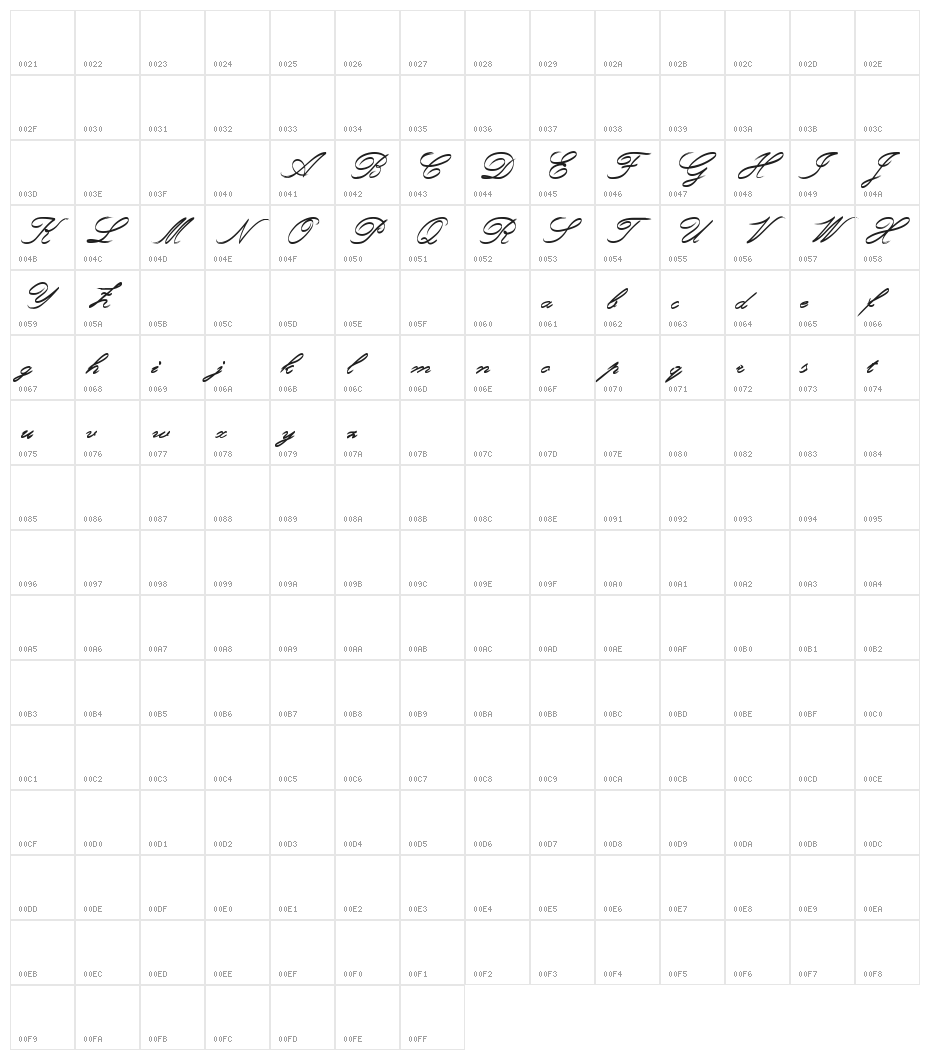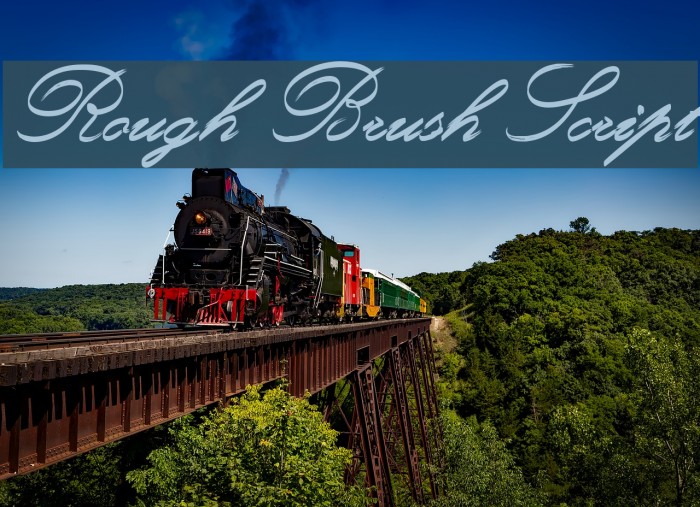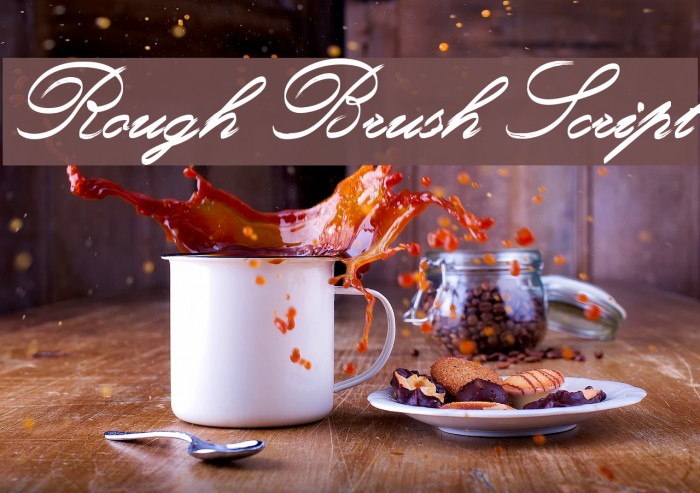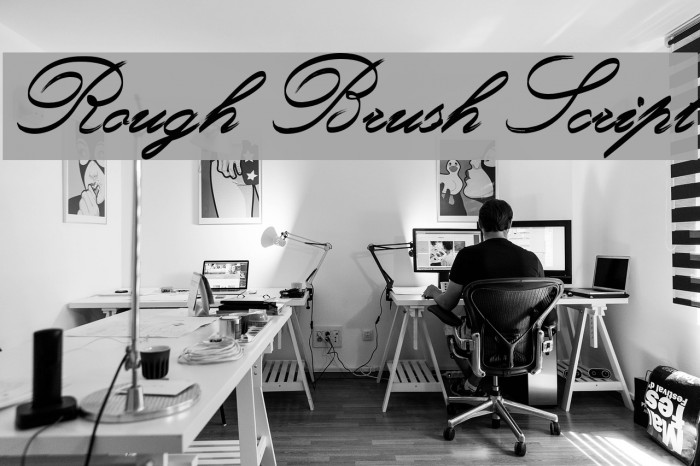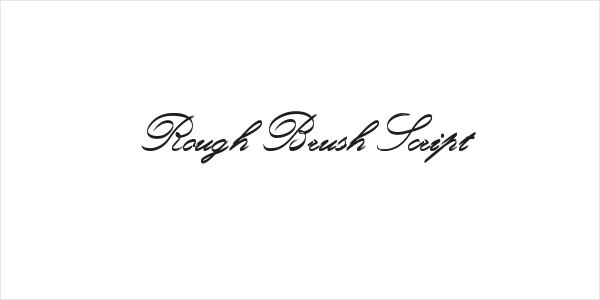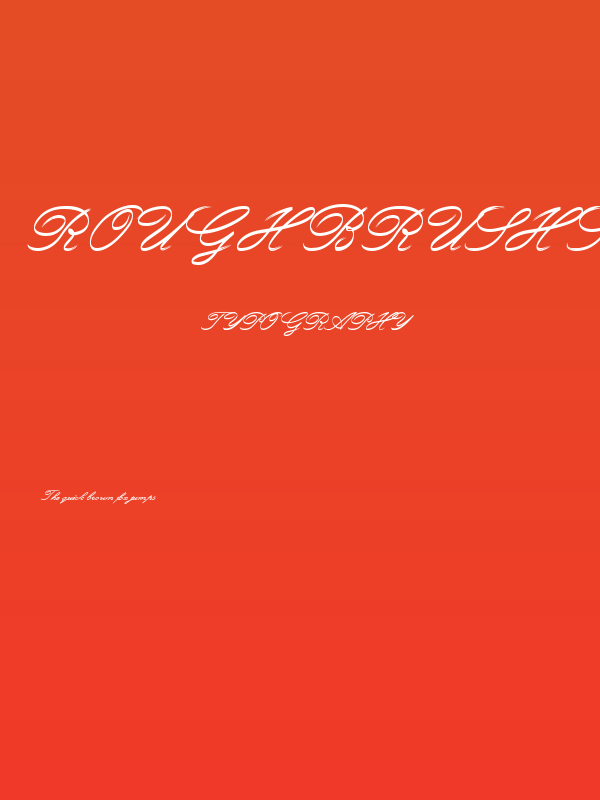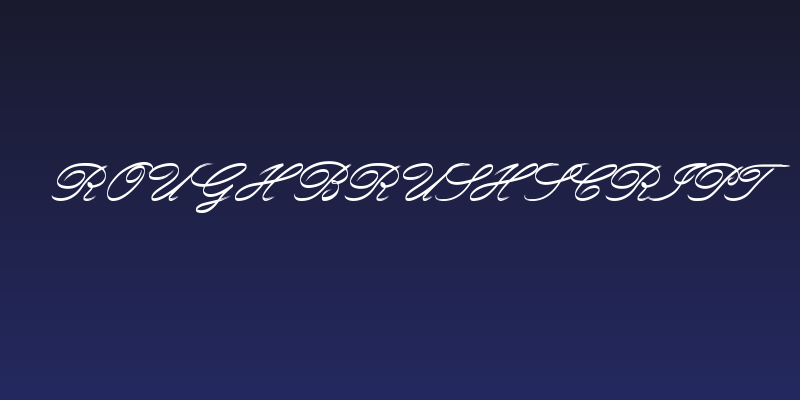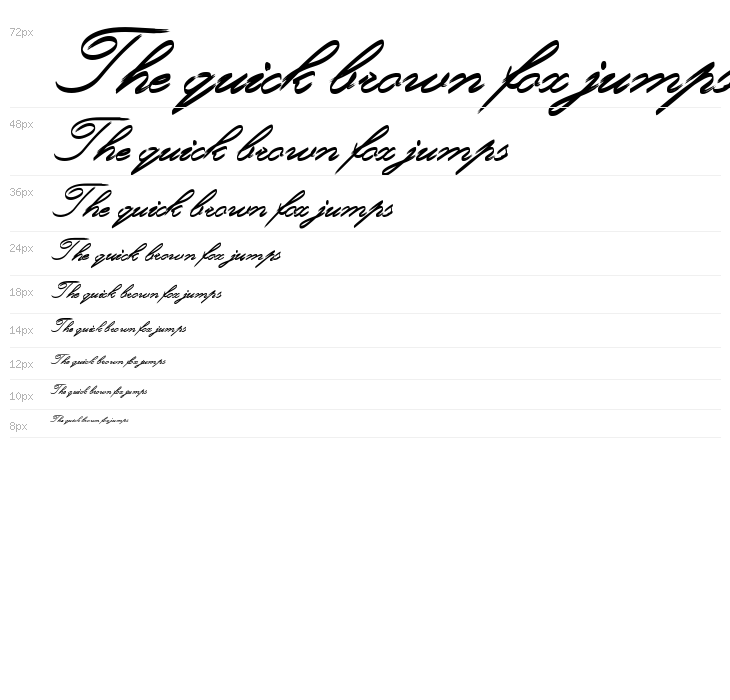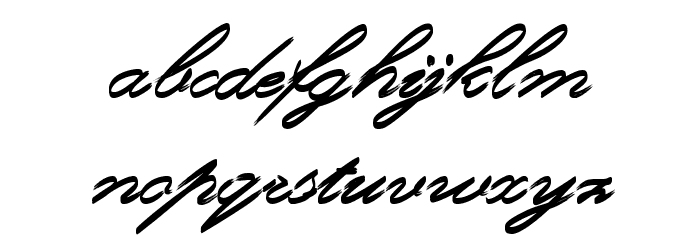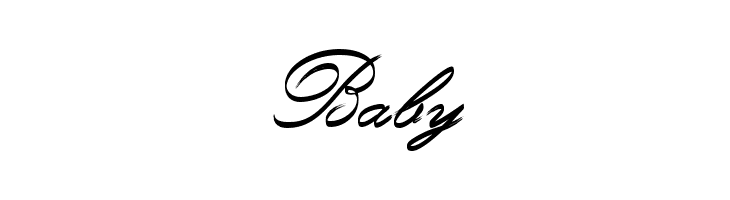
Rough Brush Script Font
Rough Brush Script Description
This script font exudes a dynamic and energetic feel, characterized by its flowing, cursive style that mimics the fluidity of handwriting. The letters are connected with sweeping strokes, giving it a sense of motion and elegance. The uppercase letters are slightly more ornate, with flourishes that add a touch of sophistication. The lowercase letters maintain a consistent rhythm, enhancing readability while preserving the artistic flair. The font's brush-like texture adds a rough, handcrafted appearance, making it ideal for projects that require a personal touch. Its distinct style is suitable for creative and expressive designs.
| Proposed Projects | Ideal for wedding invitations, greeting cards, branding projects, and artistic posters. |